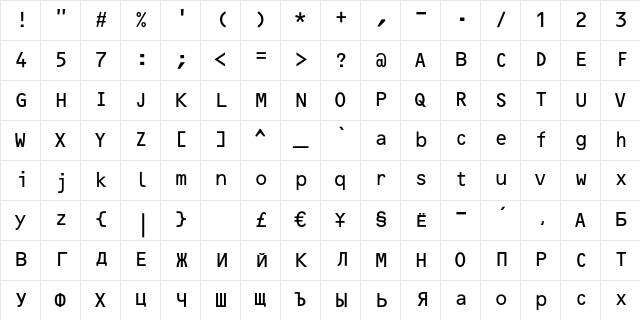
OCR-B10PitchBT Regular
Complete OCR-B10PitchBT Regular glyph index. Displaying only characters natively supported by OCR-B10PitchBT Regular font.
Design Context for OCR-B10PitchBT
OCR-B10PitchBT is a composed and adaptable typeface that performs quietly and consistently across a wide range of design contexts.